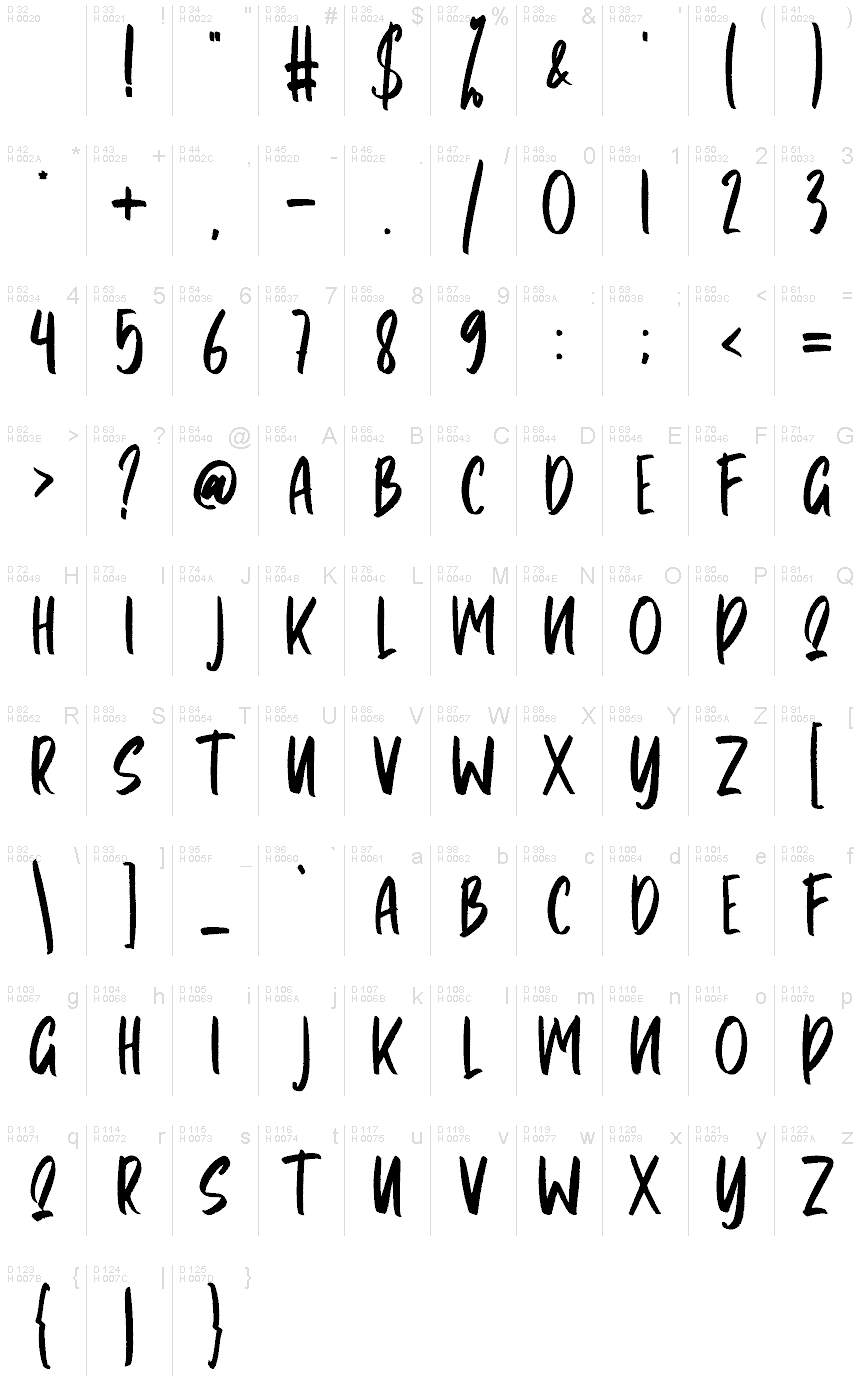
Cropasy
Cropasy font by Skiiller Studio is a condensed handwritten font with artistic flair. The penmanship of an unknown author is revealed through a modern aesthetic that combines hand-drawn feel with energetic movement. Energetic, casual, and yet highly professional. What more can one want from a free handwritten font?